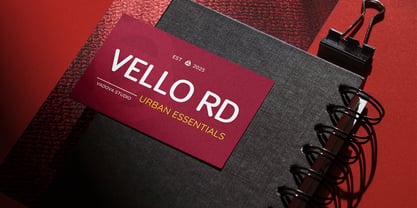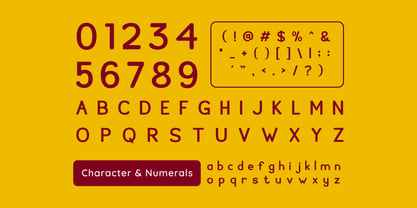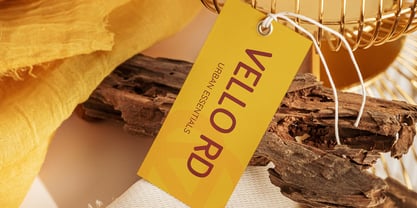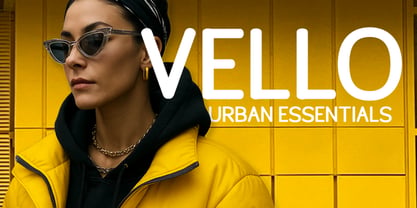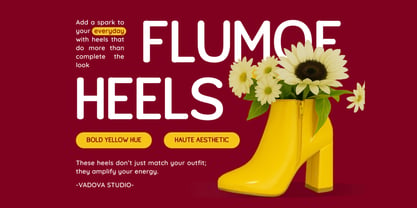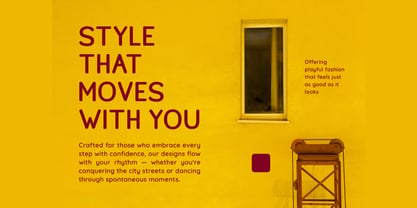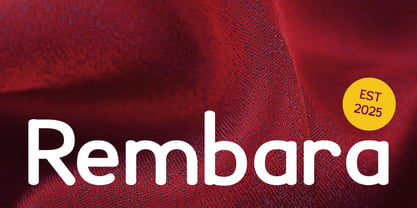
Rembara
by Vadova Std
Rembara is a rounded sans serif font with a modern yet approachable feel. It exudes a warm and inviting personality, making it ideal for brands and creatives who want to appear both professional and personable. The letterforms are clean, balanced, and softly geometric, giving it strong legibility across sizes and formats. Style & Energy: Smooth, friendly, and softly confident with a touch of playfulness. Rembara Suitable for smooth curves and friendly appearance create a warm, approachable tone, ideal for branding, lifestyle products, packaging, editorial layouts, and social media graphics. Whether used in bold headlines or clean body text, Rembara’s legibility and stylish presence offer a versatile solution for designers seeking a soft yet professional touch in their work.